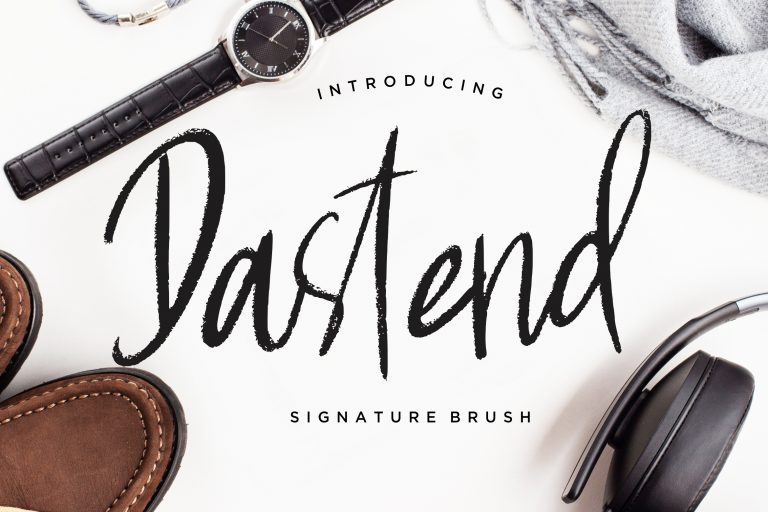
Dastend Signature Brush
Dastend is signature brush font with elegant and classy style.
Dastend is perfect for branding projects, logo, wedding designs, social media posts, advertisements, product packaging, product designs, label, photography, watermark, invitation, stationery and any projects that need handwriting taste.